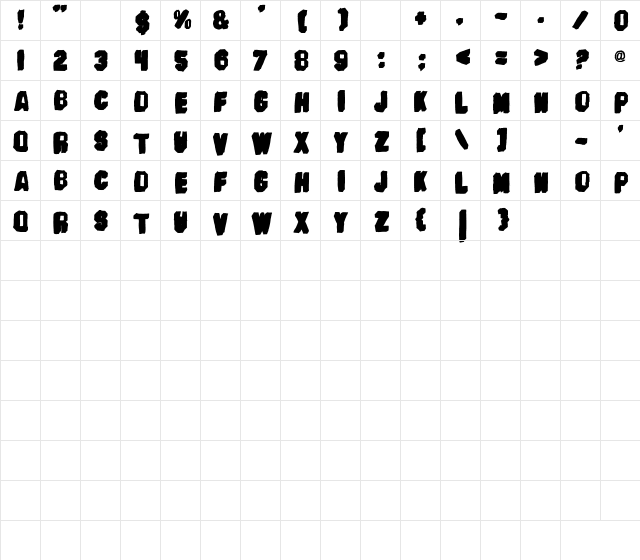
-banhart- ver : 009 Regular
Foundry: Deathrockstar
Designer: Eric Wiryanata
Design Context for -banhart- ver : 009
-banhart- ver : 009 is a composed and adaptable typeface that performs quietly and consistently across a wide range of design contexts.